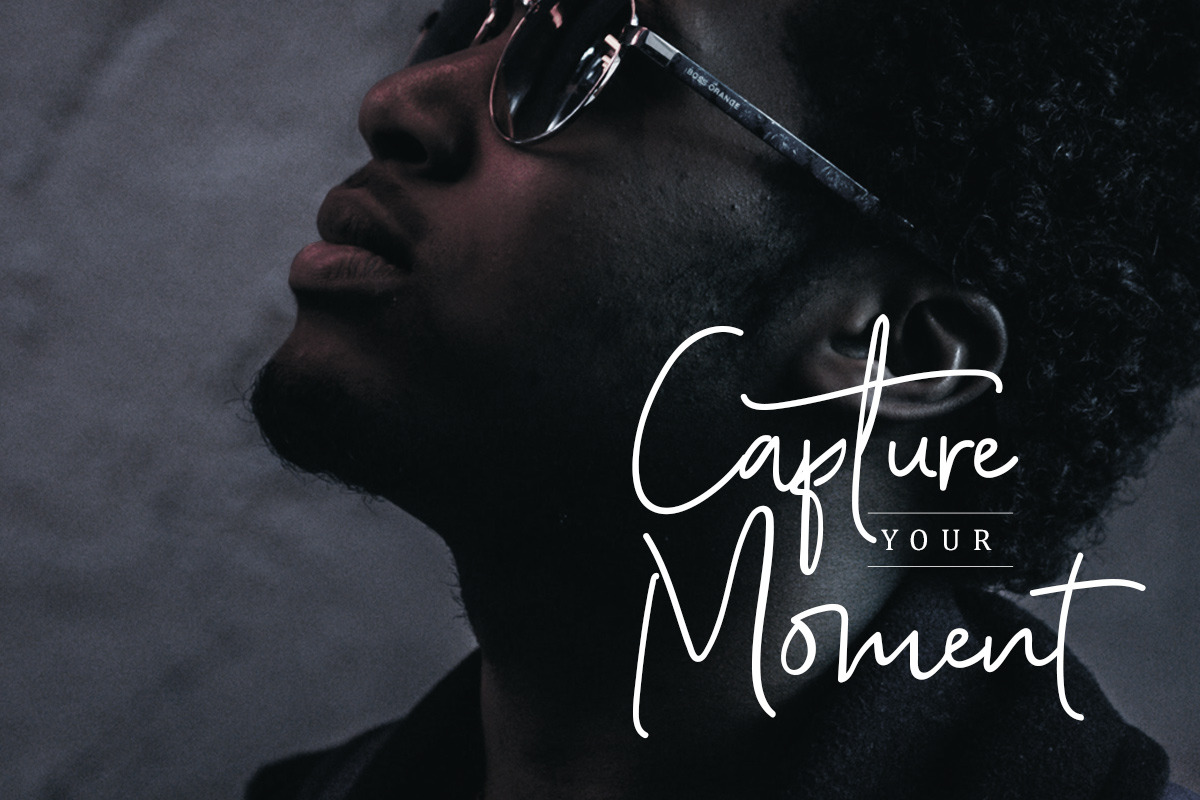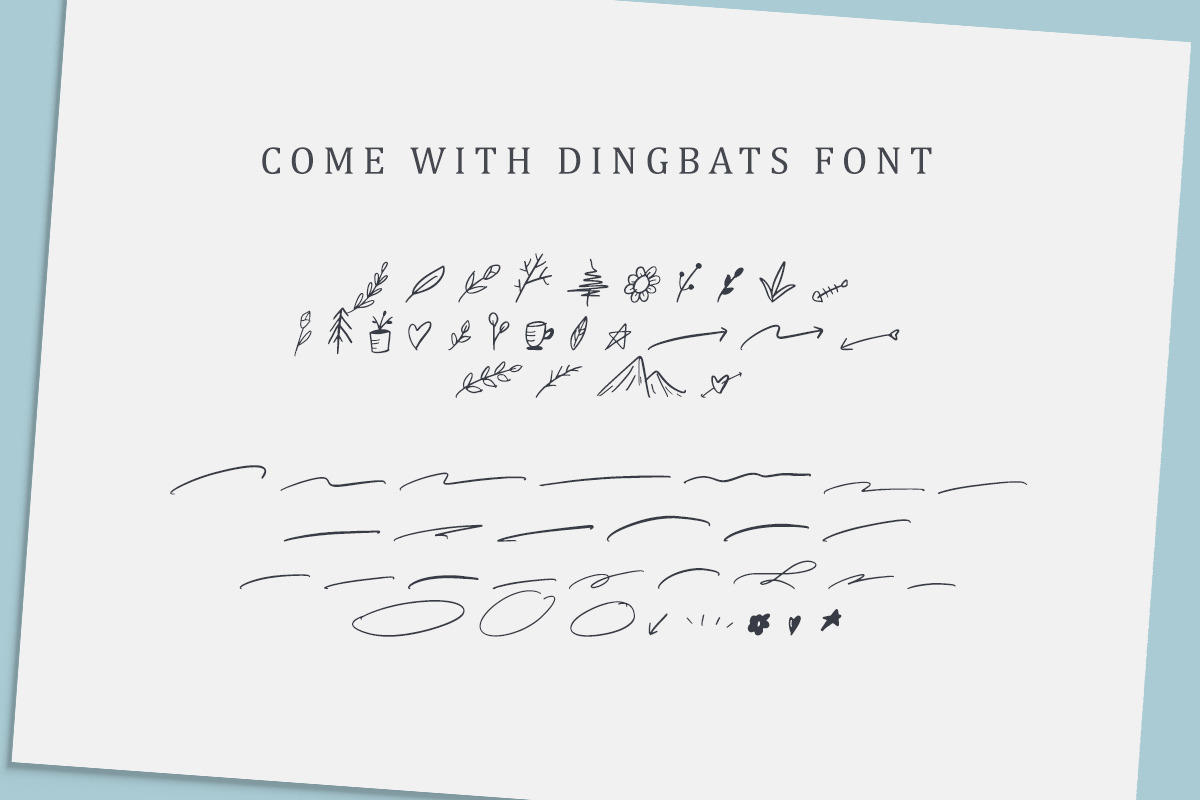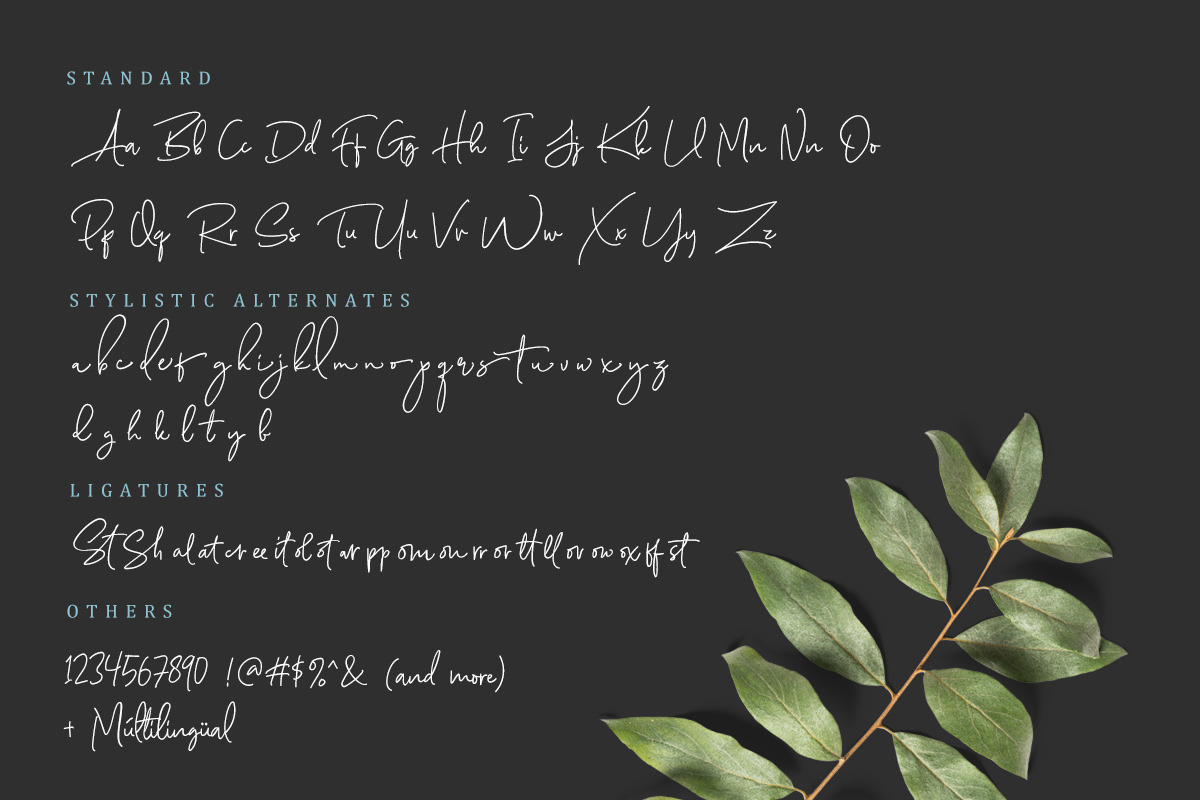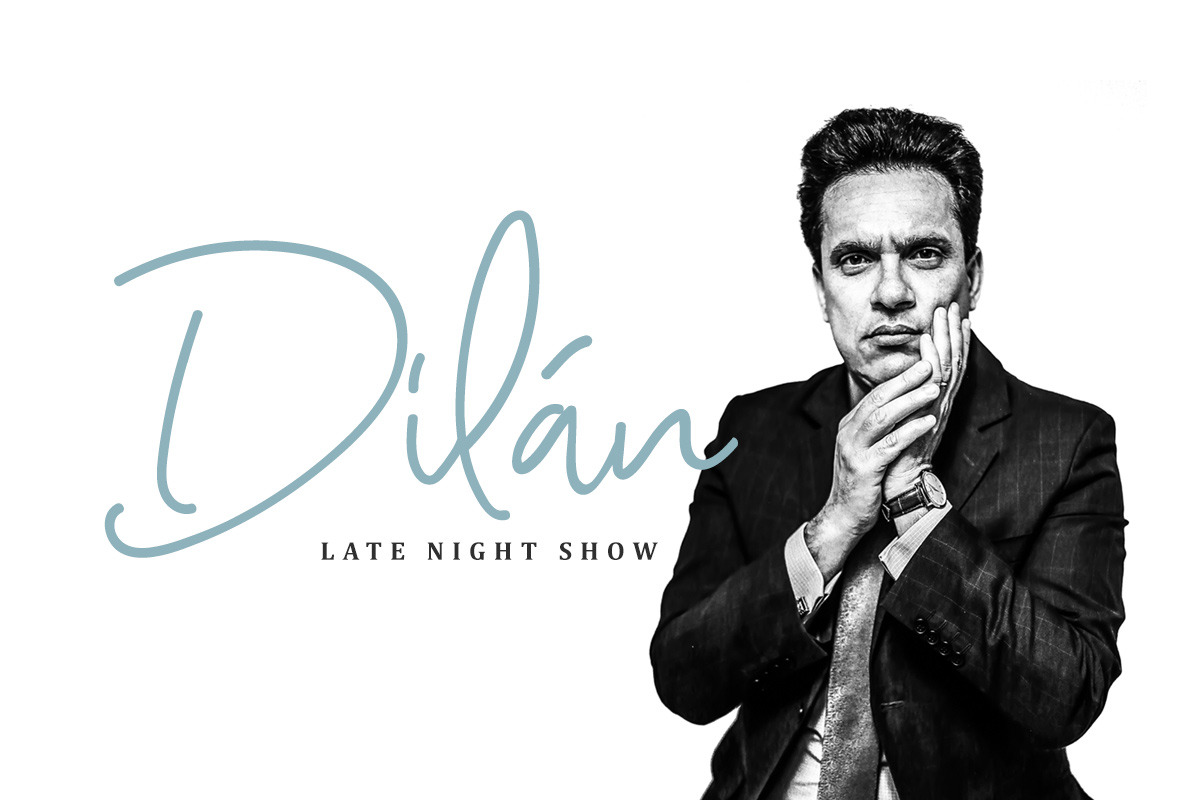
Scarlette Script
Introducing, Scarlette Script, Signature Ballpoint with Doodle Font!
Scarlette Script is signature that contain lowercase, uppercase, symbol, and also support multi language. There's a lot ligatures in this font. Scarlette Script also comes with doodle font that you can use to make a logo for branding, beautiful fashion design, suitable for wedding invitation, or handwritten quote. Also already PUA Encoded.
Foreign Languages Support: ÀÁÂÃÄÅÇÈÉÊËÌÍÎÏÑÒÓÔÕÖØÙÚÛÜÝßàáâãäåæçèéêëìíîïðñòóôõöøùúûüýÿ